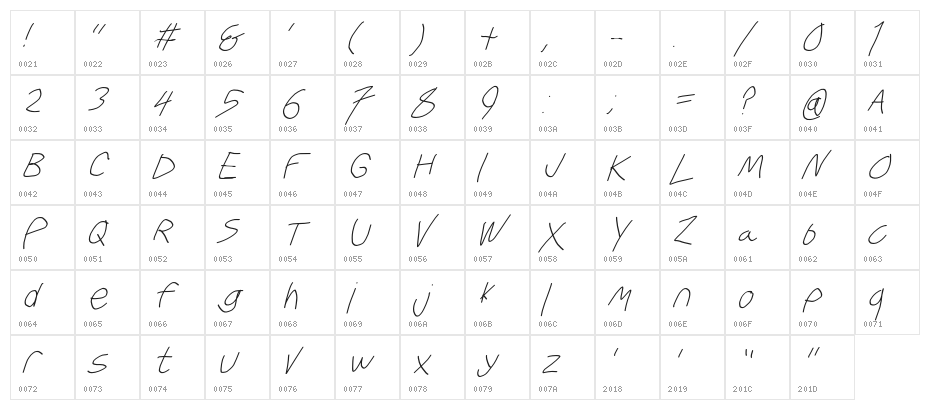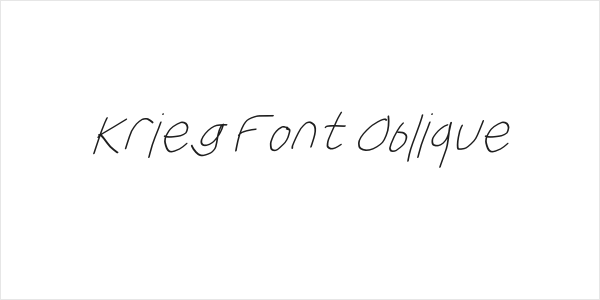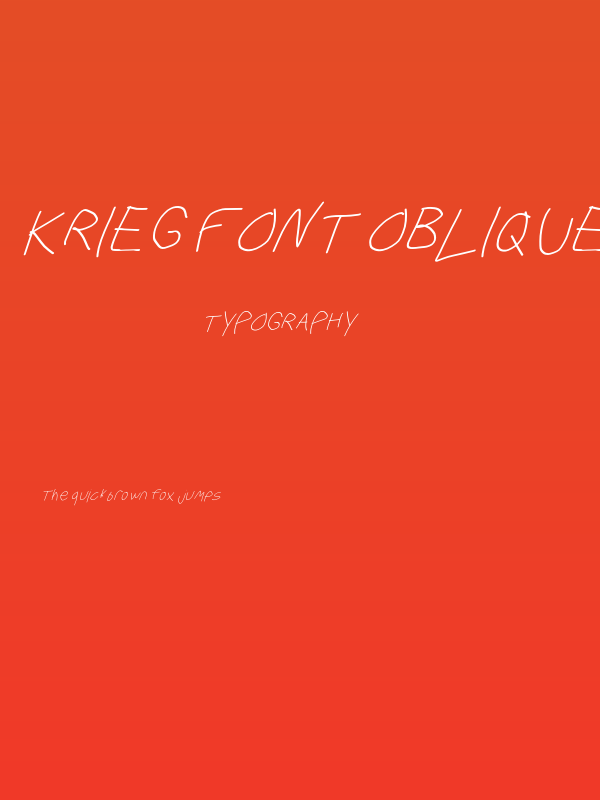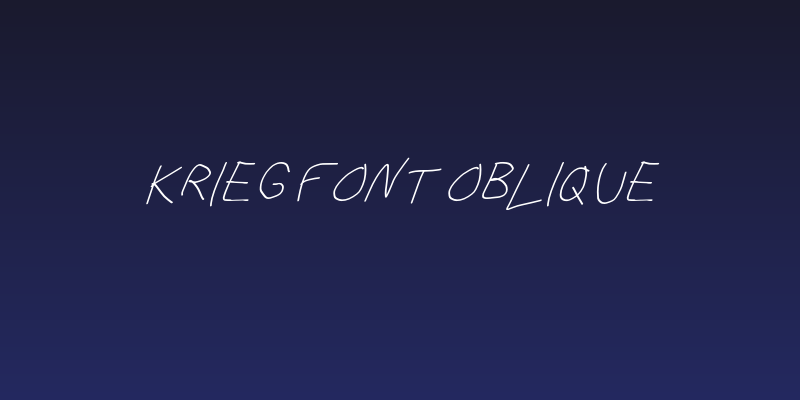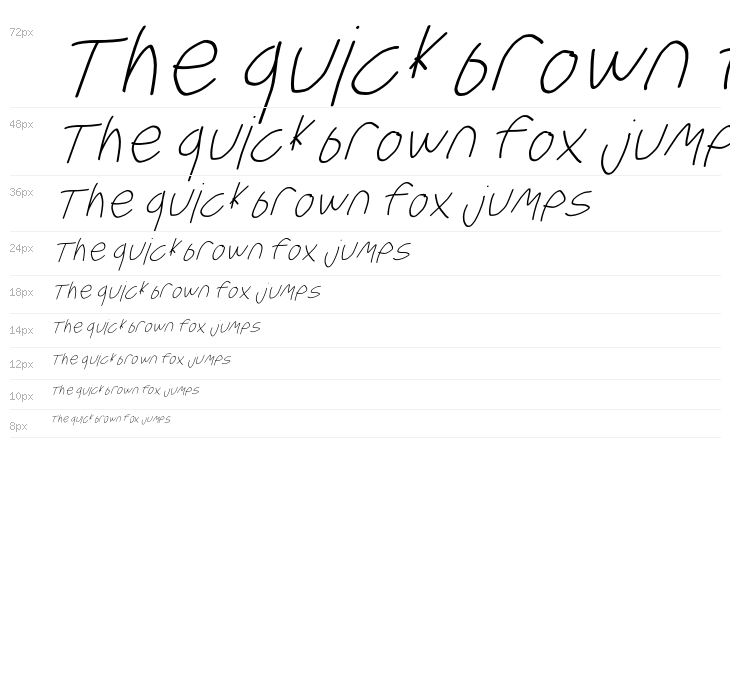
Krieg Font Oblique Font
Krieg Font Oblique Description
This font features a dynamic and energetic style with oblique, handwritten characters. The letters are slightly slanted, giving a sense of motion and fluidity. The strokes are consistent and smooth, with a casual yet refined appearance. The uppercase and lowercase letters maintain a cohesive look, while the numerals and special characters complement the overall design. This font is versatile, suitable for projects that require a personal touch or a creative flair.